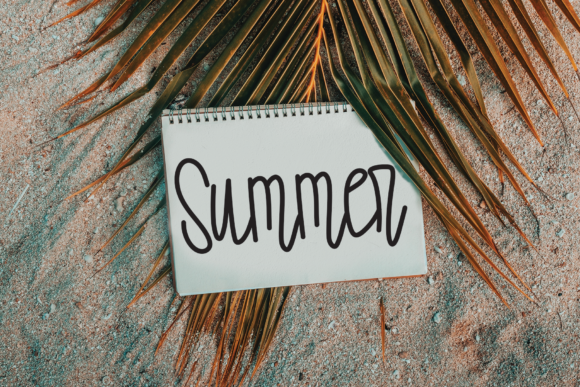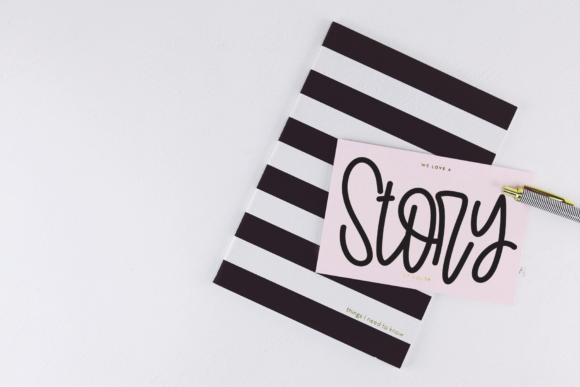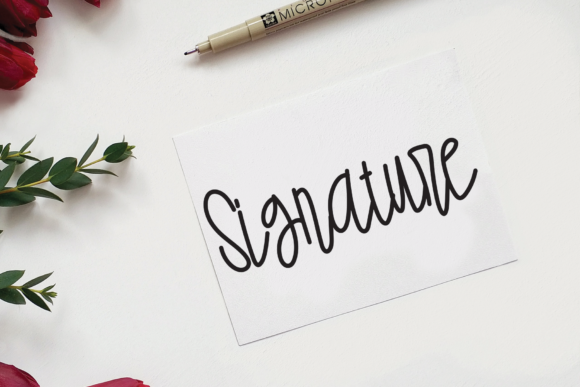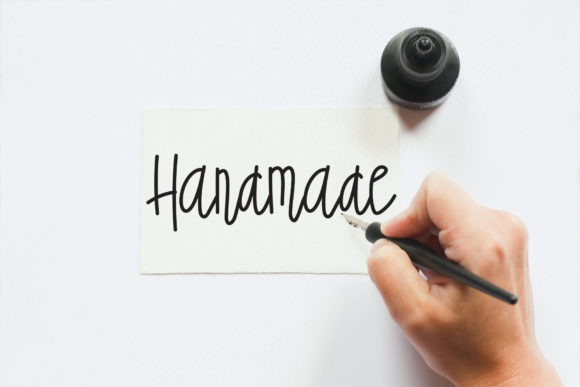
Introducing Handmade Farmhouse Font: The Perfect Addition to Your Design Arsenal
Are you tired of using the same old fonts in your designs? Do you want to add a touch of personality and whimsy to your creations? Look no further than the Handmade Farmhouse Font. This cool, asymmetric, and casual handwritten font is perfect for designers and crafters who want to add a relaxed touch to their work.
What is Handmade Farmhouse Font?
Handmade Farmhouse Font is a unique and charming font that is perfect for a variety of design projects. Its informal style makes it a go-to choice for creations that require a personal and laid-back touch. Whether you’re designing a logo, creating a social media graphic, or crafting a handmade product, this font is sure to add a touch of warmth and personality to your work.
Key Features of Handmade Farmhouse Font
- Asymmetric and casual design: The Handmade Farmhouse Font has a relaxed, handwritten feel that is perfect for designs that require a personal touch.
- Unique character set: Each letter in the font has its own unique character, making it perfect for designs that require a personal and human touch.
- Easy to read: Despite its casual design, the Handmade Farmhouse Font is easy to read, making it perfect for body text and headlines.
- Versatile: This font is perfect for a variety of design projects, from logos and branding to social media graphics and handmade products.
Why Choose Handmade Farmhouse Font?
There are many fonts to choose from, but the Handmade Farmhouse Font stands out from the crowd. Here are just a few reasons why:
- Personal touch: The Handmade Farmhouse Font adds a personal touch to your designs, making them stand out from the crowd.
- High-quality design: The Handmade Farmhouse Font is designed with high-quality in mind, ensuring that your designs look professional and polished.
How to Use Handmade Farmhouse Font
The Handmade Farmhouse Font is perfect for a variety of design projects. Here are just a few ideas to get you started:
- Logos and branding: Use the Handmade Farmhouse Font to create a unique and memorable logo for your business or brand.
- Social media graphics: Add a personal touch to your social media graphics with the Handmade Farmhouse Font.
- Handmade products: Use the Handmade Farmhouse Font to add a personal touch to your handmade products, such as labels, packaging, and marketing materials.
- Stationery and cards: Use the Handmade Farmhouse Font to create unique and personalized stationery and cards.
Tips and Tricks for Using Handmade Farmhouse Font
Here are a few tips and tricks to help you get the most out of the Handmade Farmhouse Font:
- Use it with images: The Handmade Farmhouse Font pairs perfectly with images, especially those with a rustic or vintage feel.
- Experiment with colors: The Handmade Farmhouse Font looks great in a variety of colors, from bold and bright to soft and pastel.
- Mix and match: Don’t be afraid to mix and match the Handmade Farmhouse Font with other fonts to create a unique and interesting design.
The Handmade Farmhouse Font is a unique and charming font that is perfect for designers and crafters who want to add a relaxed touch to their work. With its asymmetric and casual design, unique character set, and easy-to-read style, this font is sure to become a go-to choice for a variety of design projects. Whether you’re designing a logo, creating a social media graphic, or crafting a handmade product, the Handmade Farmhouse Font is the perfect addition to your design arsenal.